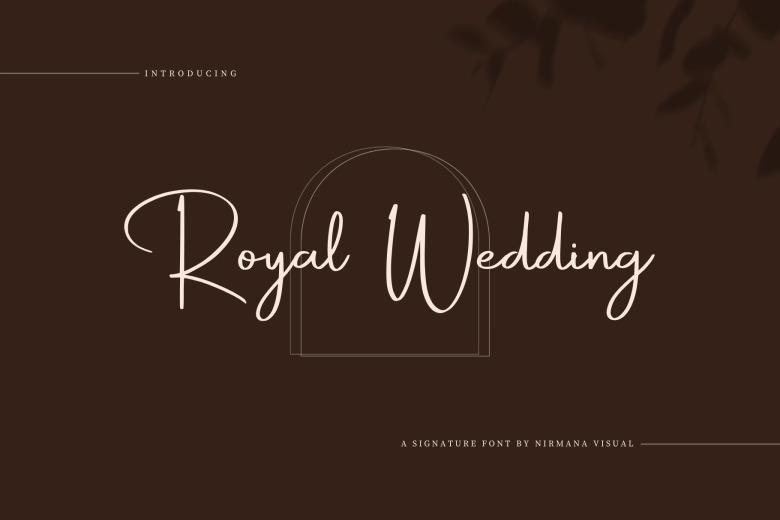
Royal Wedding Font
Royal Wedding is a natural handwriting modern calligraphy font. Royal Wedding is perfect for any branding project such as logos, t-shirt printing, creative products, and more. Add it confidently to your projects, and you will love the results.
Full set of lowercase and uppercase letters, numerals and punctuation, multilingual symbols, lowercase beginning and ending swashes.
Royal Wedding Handwritten Script Font